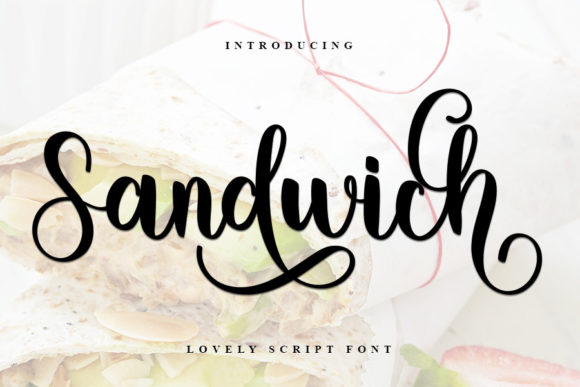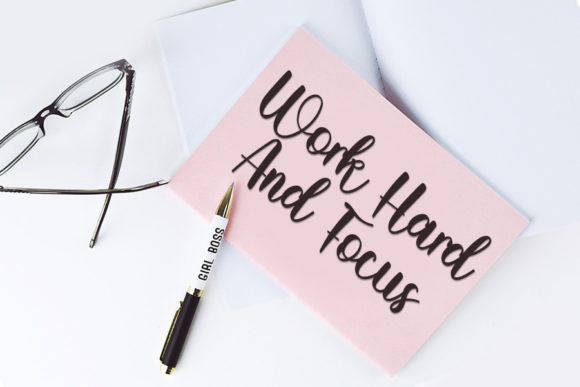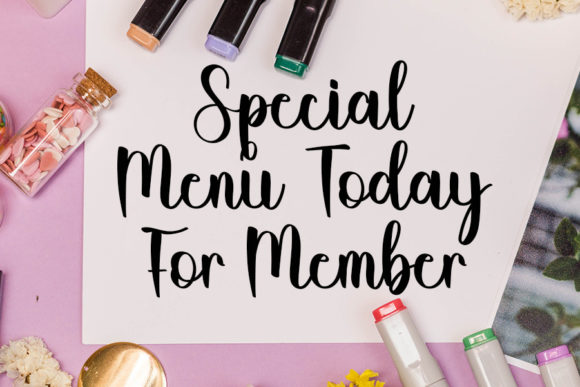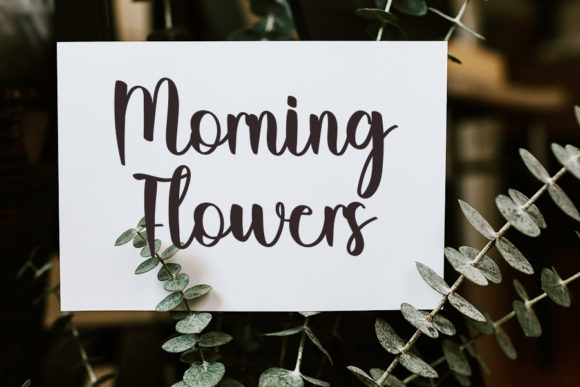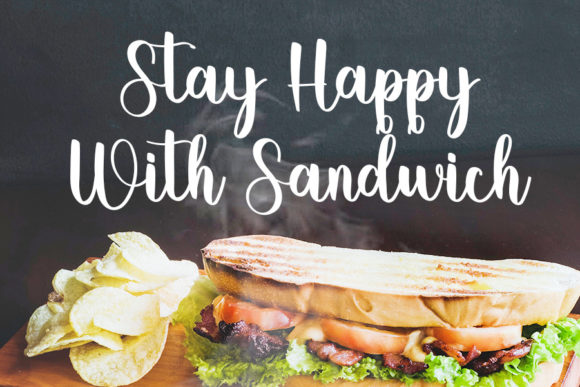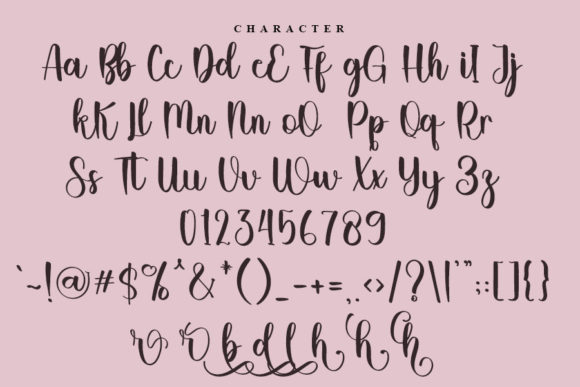
Sandwich Font
About Sandwich Font
Introducing Sandwich, a delicate and well-rounded handwritten font crafted to bring an authentic touch to your crafty projects. This versatile typeface is ideal for a variety of creative endeavors, whether you’re designing wedding invitations, birthday cards, personal branding, elegant logos, or any project that requires genuine and charming typography.
The delicacy of Sandwich is evident in its carefully crafted letters, creating a handwritten aesthetic that adds authenticity to your designs. It becomes a distinctive choice for projects where a personal and crafted touch is essential, infusing each piece with a unique character.
Envision Sandwich gracing wedding invitations, imparting a sense of warmth and genuine connection to the celebration. Picture it enhancing birthday cards, creating a personalized and heartfelt message for your loved ones. In personal branding and elegant logos, Sandwich becomes the signature element, conveying a sincere and approachable identity.
For crafty projects, Sandwich serves as the perfect companion, where every stroke and curve contributes to the overall authenticity of the design. Its well-rounded nature ensures versatility, making it suitable for various applications where a handwritten charm is desired.
One standout feature of Sandwich is its PUA encoding, granting easy access to a plethora of amazing glyphs and ligatures. This feature empowers you to customize your text, adding unique and personalized elements effortlessly.
Embrace Sandwich as the go-to font for projects that demand a delicate and genuine touch. Let its handwritten beauty elevate your crafty endeavors, turning each project into a canvas of authenticity and charm. Whether you’re expressing personal sentiments or creating a brand identity, Sandwich bridges the gap between craftsmanship and heartfelt communication.